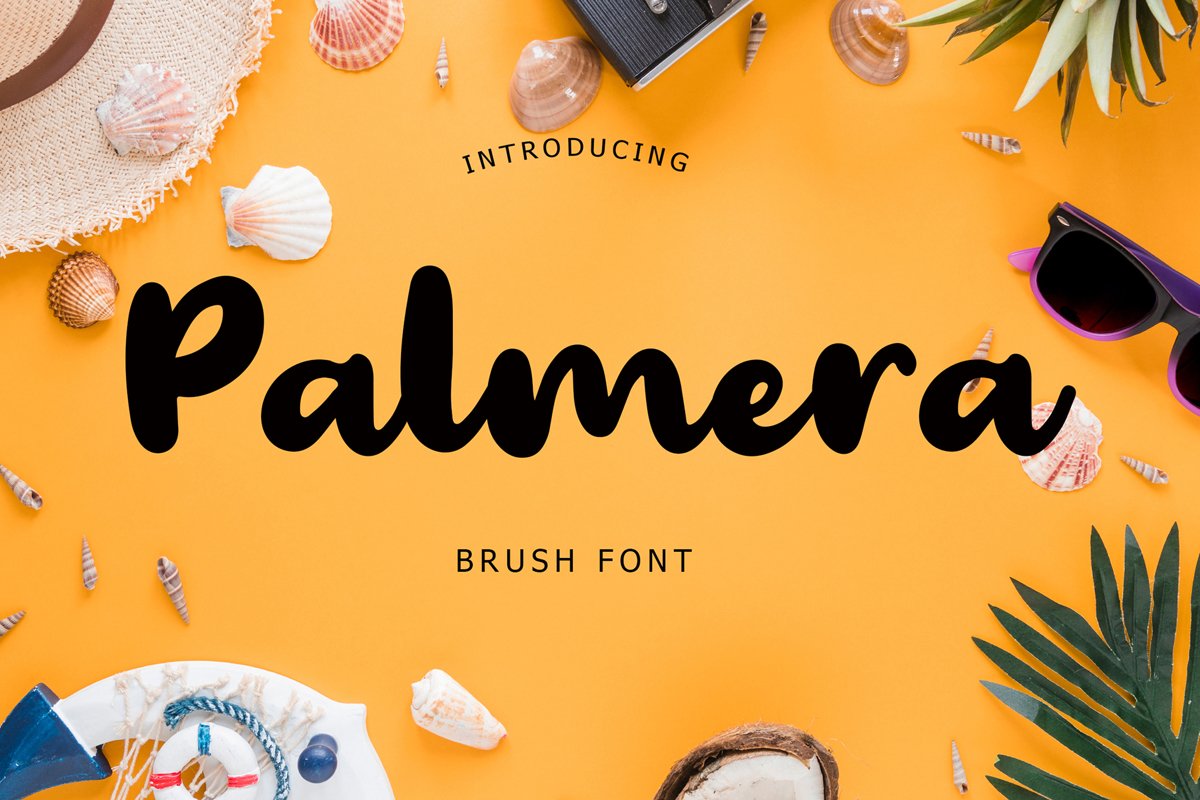
Palmera Brush Font
Palmera
Palmera is a brush font can make your text appear elegant, luxurious, and modern!Palmera is perfect for branding projects, logo, wedding designs, social media posts, advertisements, product packaging, tshirt design, product designs, label, photography, watermark, invitation, stationery and any projects.What's Included :
Palmera Brush Font example image 1
Palmera Brush Font